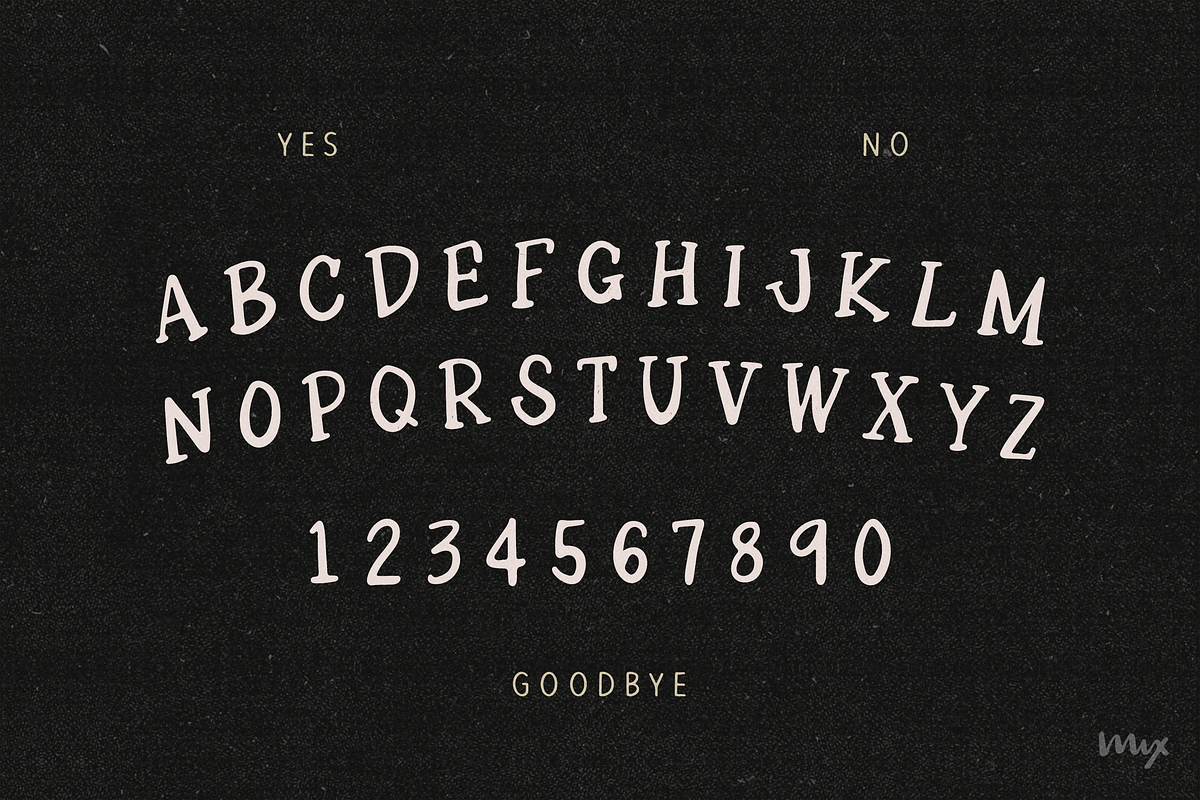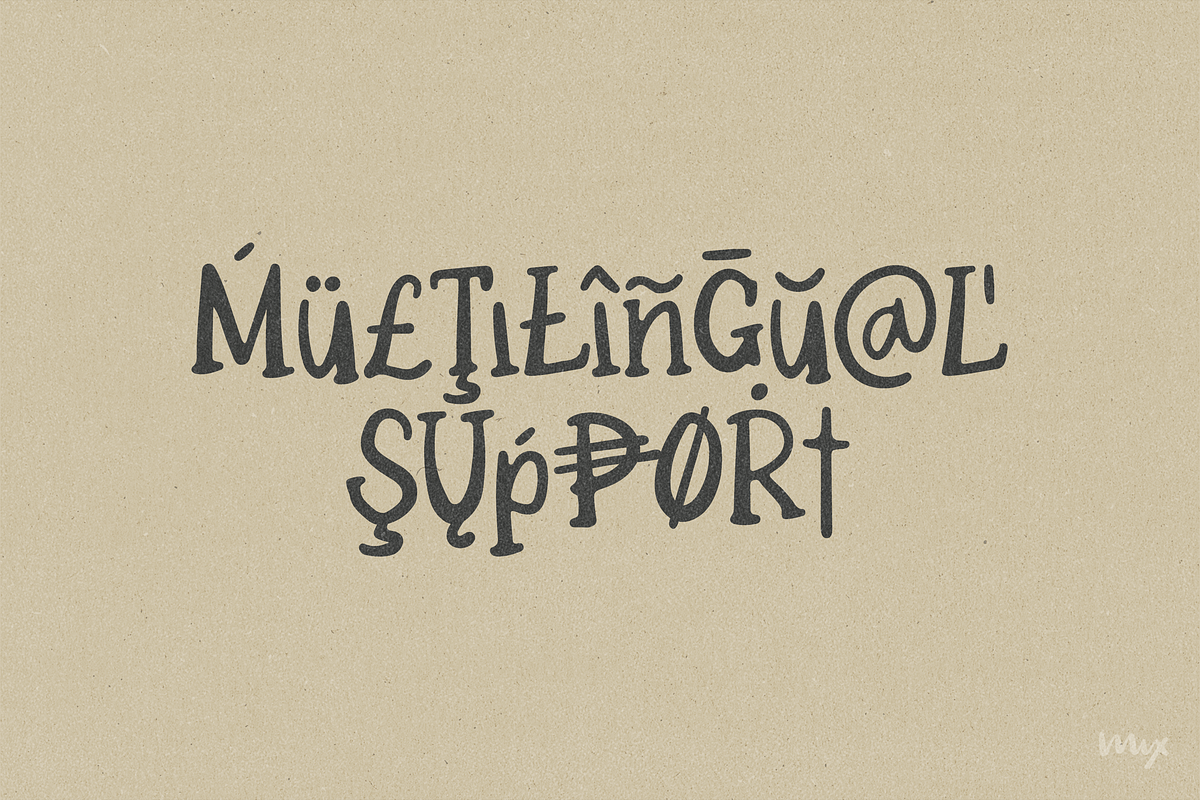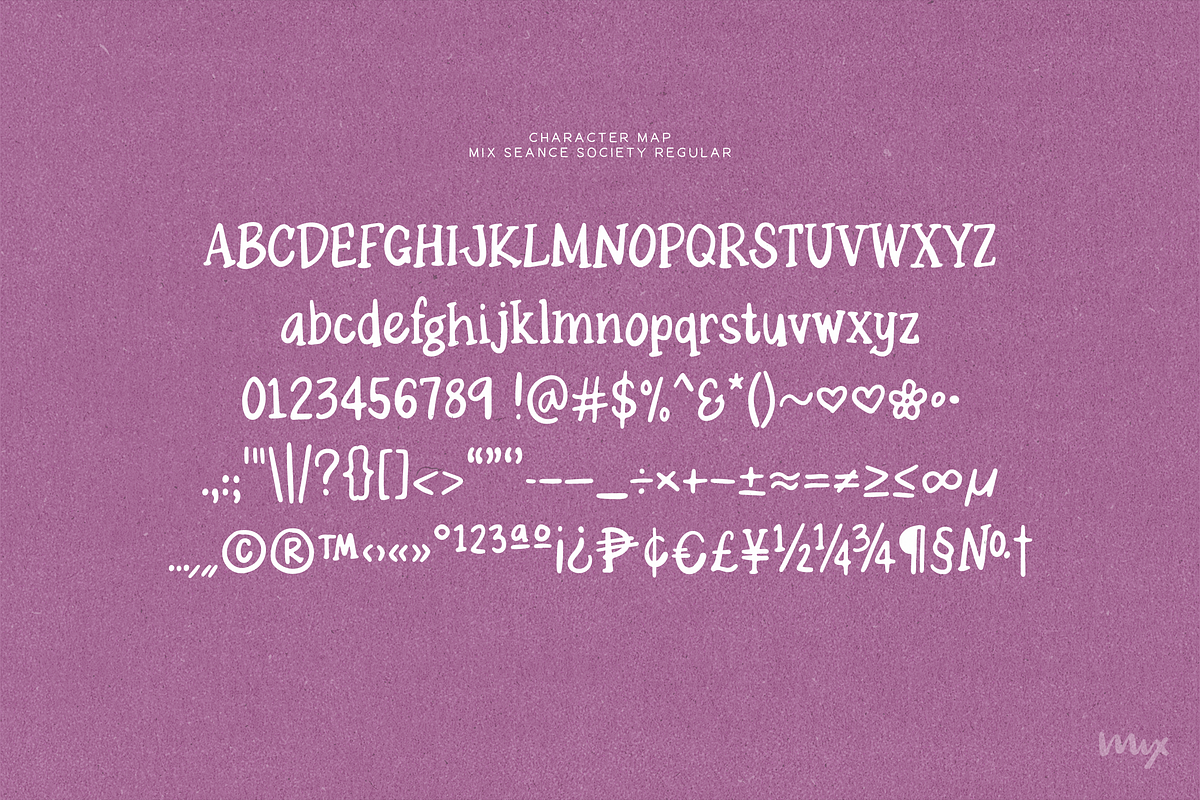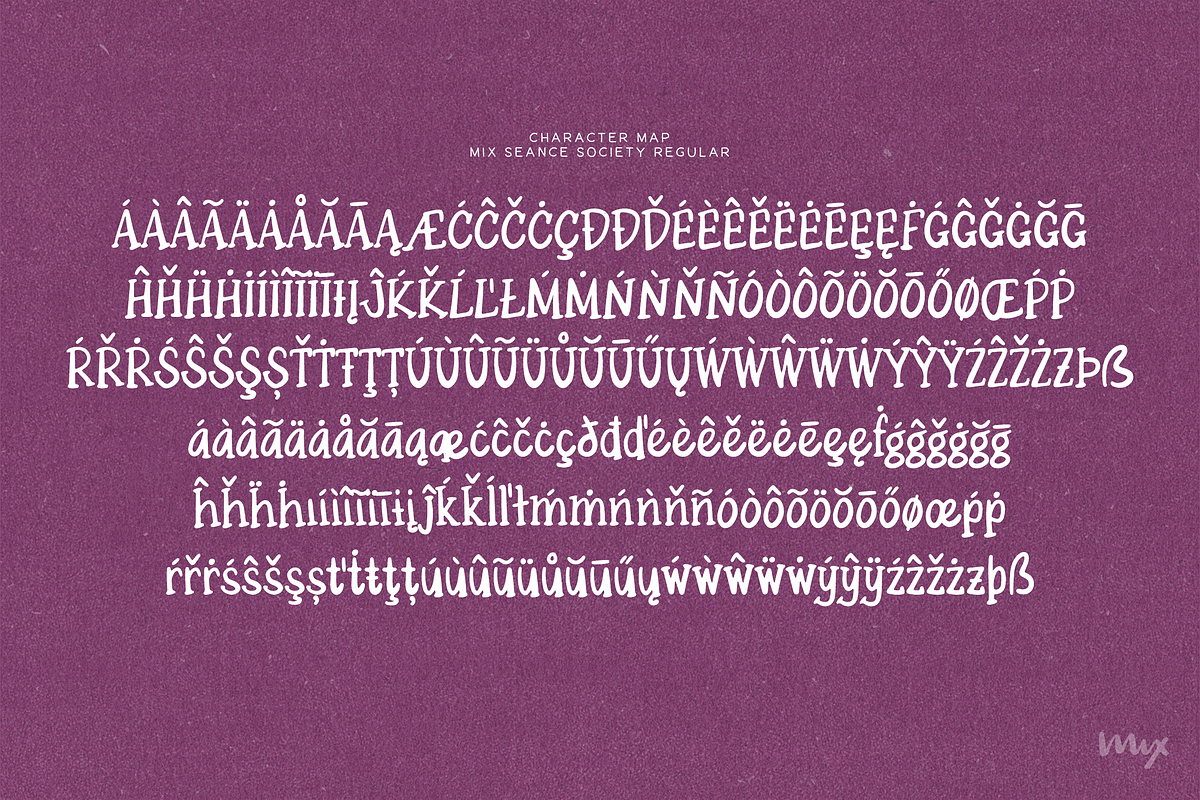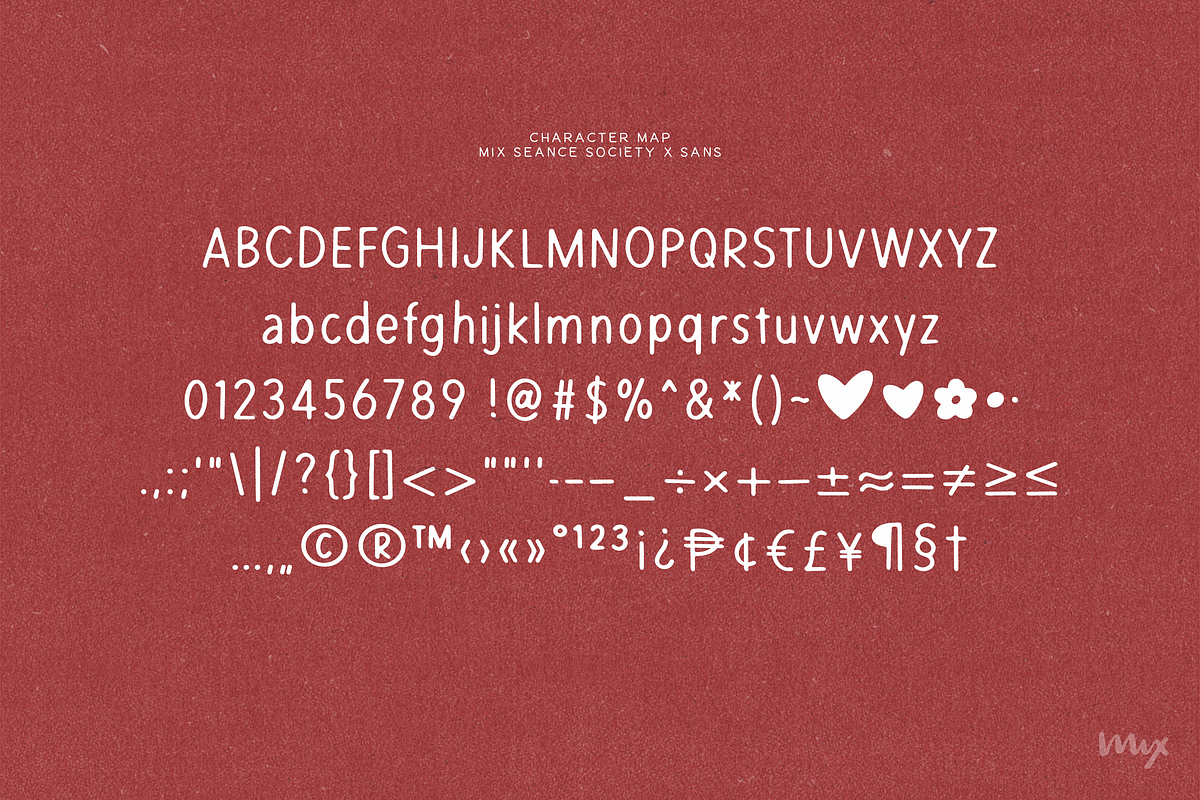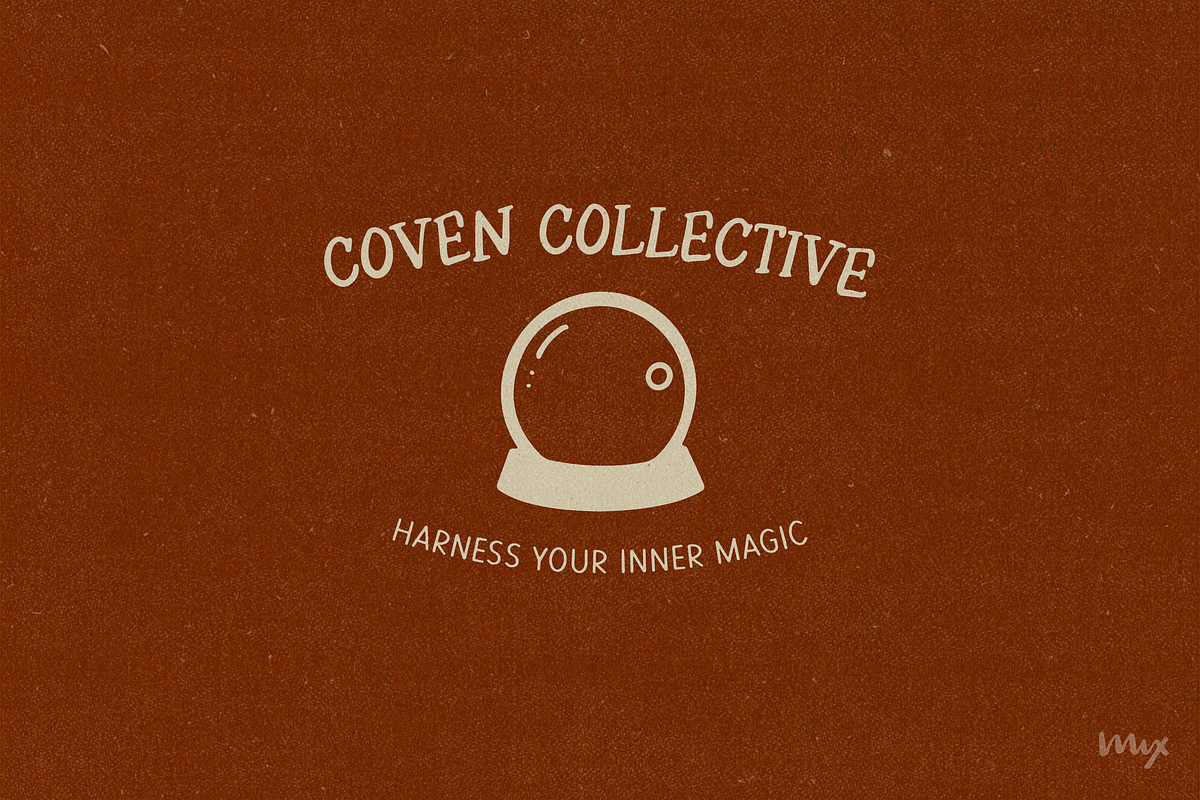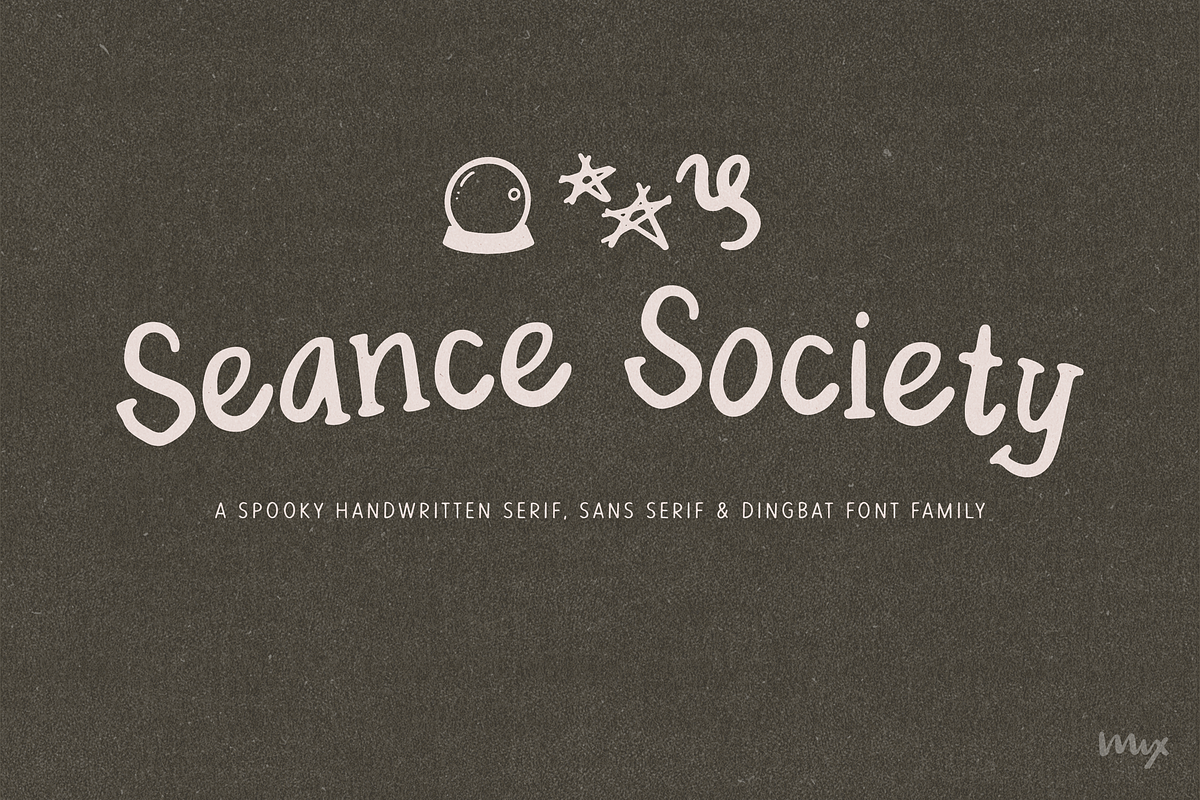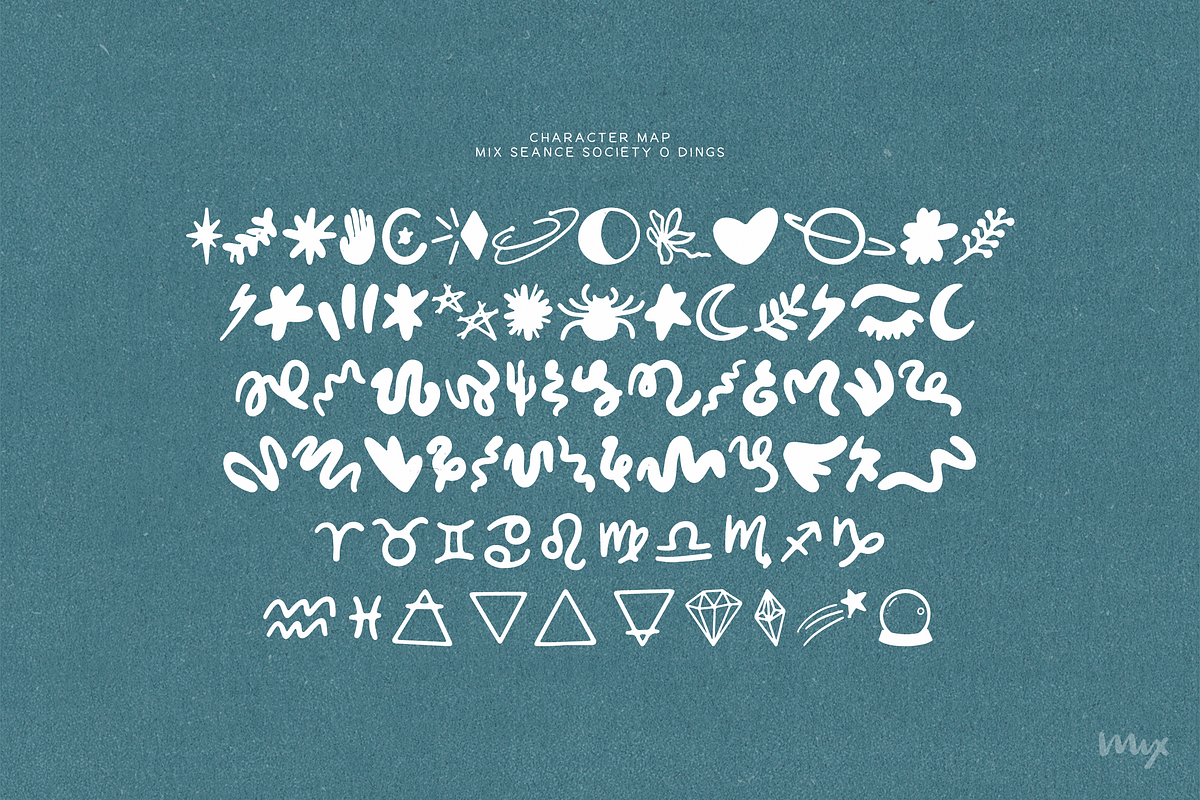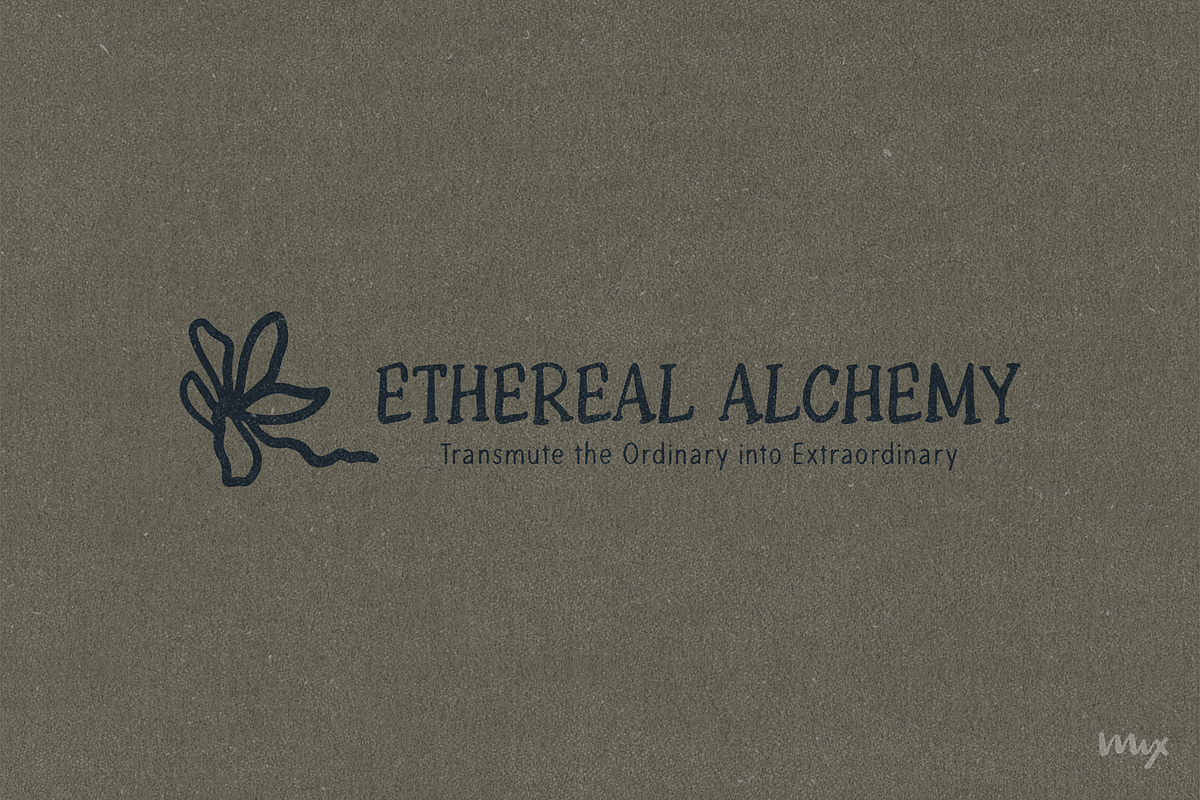
Seance Society — A Spooky Trio
If your aesthetic is witchcraft-meets-editorial, Seance Society is three fonts pretending to be a whole design system. A spooky serif, a clean sans, and — the part nobody else gives you — 72 hand-drawn dingbats: moons, cauldrons, crystals, stars, the works. Build a full occult composition without ever leaving the font family.
The three fonts:
SEANCE SOCIETY: a hauntingly elegant serif for spellbinding headlines
SEANCE SOCIETY X (SANS): a clean, understated sans that pairs with the serif
SEANCE SOCIETY O (DINGS): 72 hand-drawn mystical symbols: crescent moons, cauldrons, crystals, stars, and more
**Made for: **eerie merch, witchy branding, Halloween invitations, posters, t-shirts, logos, packaging, social media graphics, book covers, spell books, and greeting cards.